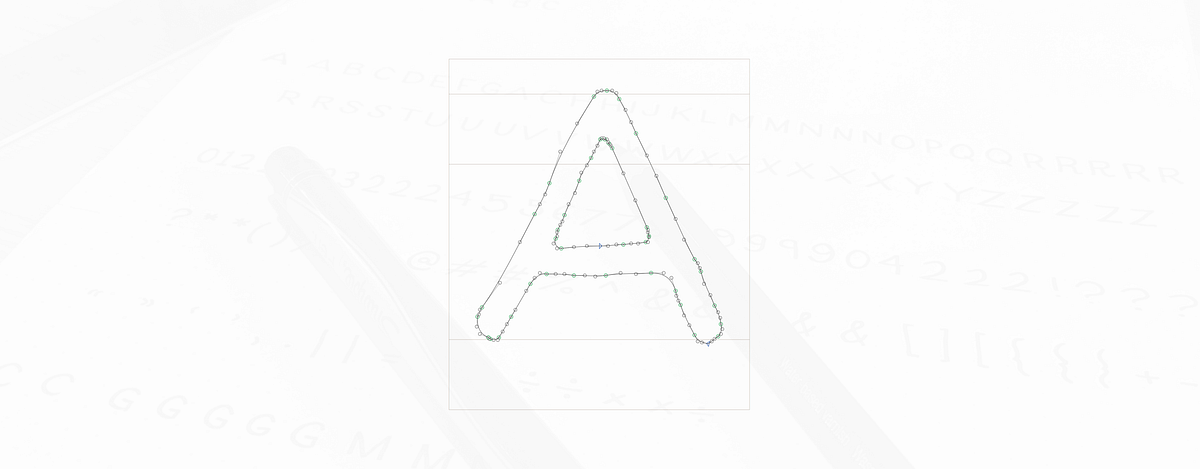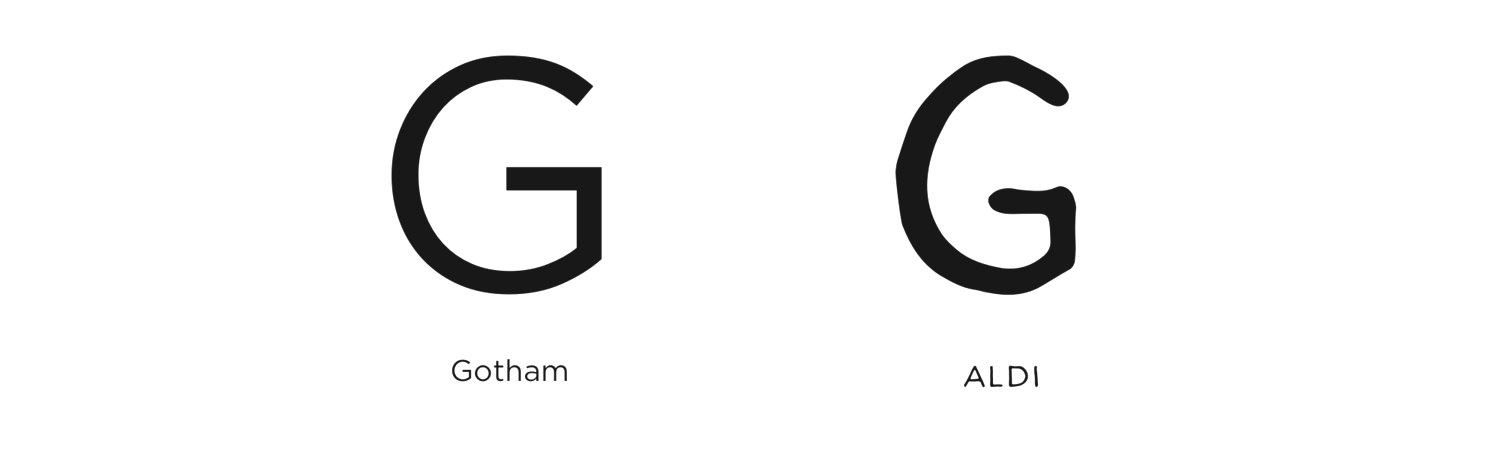
But that's not all they are great for, no matter what type of site you are building, they can be used to lighten the mood on particular section such as graphics, banners etc.
Print clearly is perfect not only for writing but also for learning how to form the letters, since this download includes a dashed trace version for the font in. The essentially endless variations provide an opportunity for real individualization. Now you know how to make your handwriting a custom font. Handwriting fonts are written with a pen, pencil, or marker. The best selection of handwriting fonts for windows and macintosh. Print this template and fill out all of the little squares. Handwriting fonts add human touch wherever they're used.
Scrolly, scripty, flowy, gorgeous penmanship is all the rage right now! You can type and print letters using your handwriting as the font, to add a personal touch. You register at calligraphr, download a template, complete the template in your own handwriting, upload it and let the website do its thing. How to use calligraphr to turn your handwriting into a font. Handwriting fonts are written with a pen, pencil, or marker. How to change the system font in windows 10. This tutorial will show you how to create true type font from your own handwriting for use in any computer. The essentially endless variations provide an opportunity for real individualization. Archive of freely downloadable fonts. Today, you are going to learn how to do this. Handwriting, especially with that of cursive writing has become very important in the 19th century and towards the 20th century. Heart breath script font is a beautiful and cursive calligraphy handwritten font. Print this template and fill out all of the little squares. How to fake script calligraphy! Writing fonts include both printing and cursive styles and is less artistic than formal calligraphy. Now you know how to make your handwriting a custom font. There are many free font sites where you can find professional handwritten fonts for your need. Also, see how his g in dog is cut off on the bottom? Inspired by the creator's own handwriting, this font features dainty handwritten letters in an elegant yet casual style. To start, choose one setting to change for your first character to see how it looks. But that's not all they are great for, no matter what type of site you are building, they can be used to lighten the mood on particular section such as graphics, banners etc. So here, we have something for you! Open word and go to the font menu. Handwriting fonts are an easy way to add a personal touch to your content. Why do i need to learn how to draw letters? There are a lot of ways to turn your handwriting into a font, but this is hands down the easiest way. Scrolly, scripty, flowy, gorgeous penmanship is all the rage right now! Our handwritten fonts are an opportunity to address personal and loving issues. Print clearly is perfect not only for writing but also for learning how to form the letters, since this download includes a dashed trace version for the font in. Learn how to design like a pro with fonts, colour and layout. Have you ever wanted to create your own handwriting font that can be used to computerize your handwriting?
How To Design And Construct A Functional Cursive Font. Why do i need to learn how to draw letters? Well,, i'm back with complete and pure tutorial for making your hand writing your font to use in word, excel, etc. Learn how to design like a pro with fonts, colour and layout. The tools used listed below : To start, choose one setting to change for your first character to see how it looks. In the age of social media and smartphones, probably, there are people, who have never heard about handwritten letters. Open word and go to the font menu. Here are 50 free handwriting fonts you can incorporate into your designs to give them a unique, handwritten feel (without the time and hassle necessary to actually write things out) Scroll down the list to find options that look handwritten. To get started, head to the calligraphr website and click the get started for free button to get more free fonts to add to your collection. Use it to personalize everything from. How to use calligraphr to turn your handwriting into a font. Now you know how to make your handwriting a custom font. If you are a designer or artist it could expand your artistic possibilities and bring profit. For example, apply one of the following
There are many free font sites where you can find professional handwritten fonts for your need.
How To Make A Font From Your Handwriting Youtube. Here are 50 free handwriting fonts you can incorporate into your designs to give them a unique, handwritten feel (without the time and hassle necessary to actually write things out) How to use calligraphr to turn your handwriting into a font. Why do i need to learn how to draw letters? In the age of social media and smartphones, probably, there are people, who have never heard about handwritten letters. Scroll down the list to find options that look handwritten. For example, apply one of the following The tools used listed below : To get started, head to the calligraphr website and click the get started for free button to get more free fonts to add to your collection. If you are a designer or artist it could expand your artistic possibilities and bring profit. Open word and go to the font menu. Learn how to design like a pro with fonts, colour and layout. Well,, i'm back with complete and pure tutorial for making your hand writing your font to use in word, excel, etc. To start, choose one setting to change for your first character to see how it looks. Use it to personalize everything from. Now you know how to make your handwriting a custom font.
Creating a font using your handwriting is a creative way to make unique letters and documents on your computer.
How To Design And Construct A Functional Cursive Font. For example, apply one of the following Now you know how to make your handwriting a custom font. The tools used listed below : To get started, head to the calligraphr website and click the get started for free button to get more free fonts to add to your collection. Why do i need to learn how to draw letters? Use it to personalize everything from. Here are 50 free handwriting fonts you can incorporate into your designs to give them a unique, handwritten feel (without the time and hassle necessary to actually write things out) Scroll down the list to find options that look handwritten. Open word and go to the font menu. In the age of social media and smartphones, probably, there are people, who have never heard about handwritten letters. How to use calligraphr to turn your handwriting into a font. To start, choose one setting to change for your first character to see how it looks. Well,, i'm back with complete and pure tutorial for making your hand writing your font to use in word, excel, etc. If you are a designer or artist it could expand your artistic possibilities and bring profit. Learn how to design like a pro with fonts, colour and layout.
Scroll down the list to find options that look handwritten.
Designer sune matras challenged herself to create a font based on one of her father's handwriting styles: I can't really say what the best one is because that's a matter of personal preferrence, but my favourites are: Print the template at a smaller size and fill it out (this way you can write smaller and also with a thinner pen ), since the actual size is not that relevant for the scan. Our handwritten fonts are an opportunity to address personal and loving issues. Designer sune matras challenged herself to create a font based on one of her father's handwriting styles: Today, you are going to learn how to do this. Now you know how to make your handwriting a custom font. See more ideas about handwriting fonts, lettering alphabet. Download the best free handwritten fonts, that are hand picked collections by our editorial experts and can be used on mac, pc, website. Reminiscent of writing with a sharpie, the tragic marker handwriting font has thick, clean lines that make it perfect for calling attention to important related: